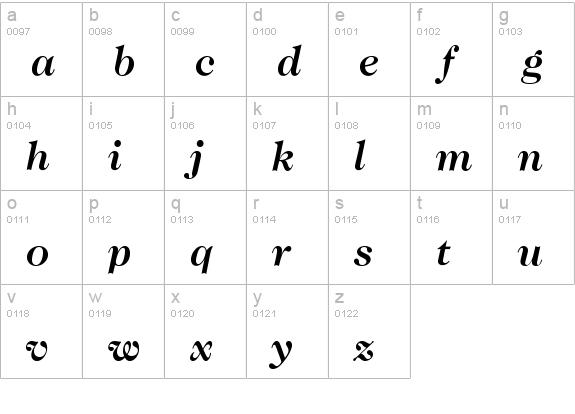
Caslon 224* Medium Italic Font Details
Caslon 224* Medium Italic is a balanced, medium-weight, italic variant in the Caslon typeface family \xE2\x80\x94 well suited to sub-headlines, navigation, and balanced editorial work.
Caslon 224* Medium Italic font embodies a perfect balance of elegance and readability, making it a versatile choice for various design projects. Its slanted, medium weight characters exude a sense of sophistication and style, adding a touch of flair to any text. The gentle curves and graceful strokes of this font create a harmonious flow of text, making it a pleasure to read. What sets Caslon 224* Medium Italic font apart is not just its timeless design, but also the fact that it is available for free download at FontsMarket.com. This means that designers, creatives, and enthusiasts alike can easily access and incorporate this beautiful typeface into their projects without any cost. Whether used for print materials, digital designs, or branding, Caslon 224* Medium Italic font is sure to elevate the visual appeal of any project with its classic charm and modern sensibility. Download Caslon 224* Medium Italic font for free today at FontsMarket.com and unleash the creative possibilities it offers in your next design endeavor.